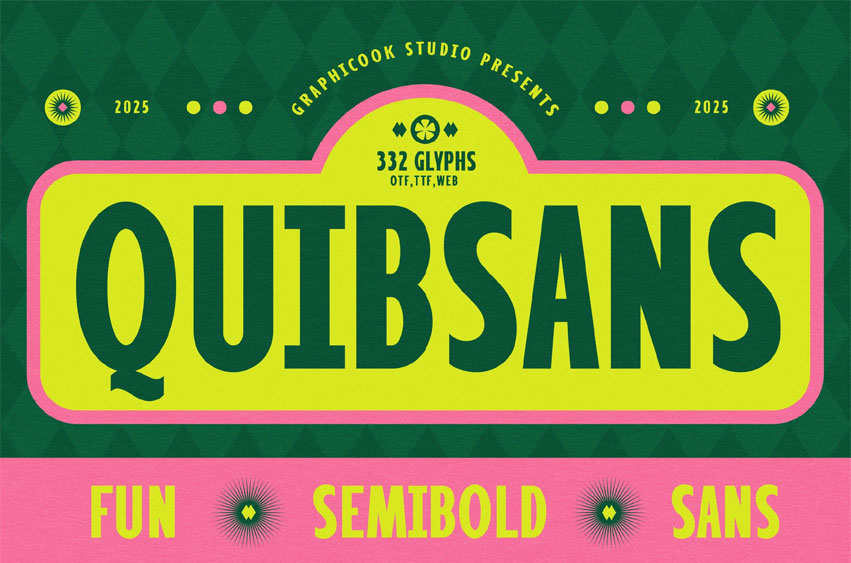
Quibsans Font
Quibsans Font is a bold sans-serif font with strong, confident shapes, presented in a retro-modern style. Great for posters, headlines, or any design that needs to stand out with personality.
It is perfect for headlines, logotypes, magazines, packaging, quotes, movies, games, cover albums, book covers, and flyers. It’s a perfect solution for creating eye-catching designs that stand out in any context.